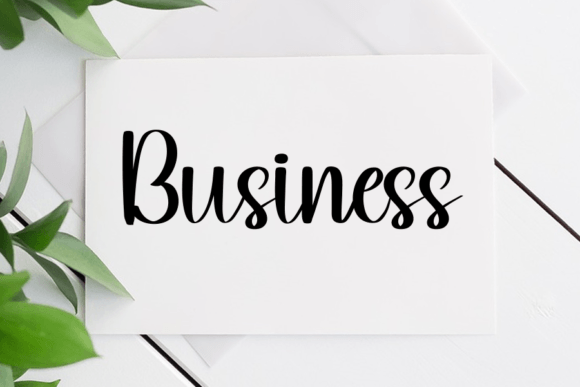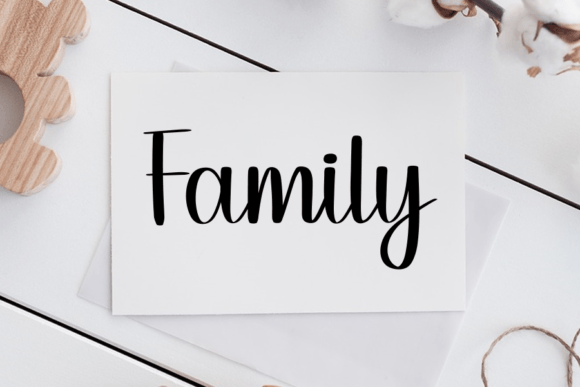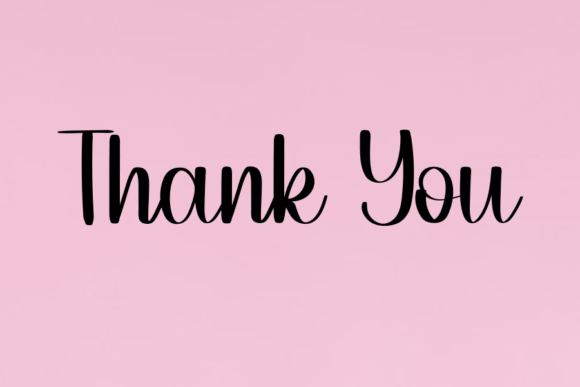
Sunday Font
The Sunday Font Download is a sweet and adorable handwritten script designed to bring charm and warmth to all types of creative projects. With its natural strokes and neat handwritten rhythm, Sunday ensures your work feels authentic, engaging, and professional. Whether you’re working on invitations, posters, or branding, this font provides an elegant yet playful touch.
A Sweet Handwritten Script with Versatile Charm
Sunday combines modern handwritten elegance with casual creativity. Unlike ordinary typefaces, this Sunday script font feels natural and heartwarming, making it ideal for designs that require personality. As a result, it adapts seamlessly to both print and digital applications.
Handwritten fonts always enhance personal designs. The Sunday Font is perfect for wedding invitations, thank you cards, birthday notes, and seasonal stationery. Moreover, its adorable flow ensures that every piece of stationery feels heartfelt and memorable.
Branding and Logo Design with Sunday Font
Typography shapes the way audiences perceive a brand. The Sunday handwritten font is excellent for boutique logos, product packaging, and promotional campaigns. In addition, its sweet and charming strokes provide brands with a friendly yet elegant identity.
Posters, Titles, and Creative Displays
The Sunday Font Download is also a wonderful choice for posters, magazine covers, and book titles. Therefore, it works beautifully across both large-scale and small-scale designs while maintaining clarity and charm.
In today’s digital-first world, fonts must be engaging and versatile. The Sunday typeface integrates smoothly into Instagram posts, Pinterest graphics, YouTube thumbnails, and blog headers. Its adorable handwritten style ensures that digital projects look polished and appealing.
Why Designers Choose Sunday Typeface
Designers appreciate fonts that balance charm and practicality. Many handwritten scripts can be too decorative, but the Sunday handwritten script maintains readability while keeping its sweet personality. This makes it a dependable choice for creative professionals and hobbyists alike.
Add Sweet Elegance to Your Projects Today